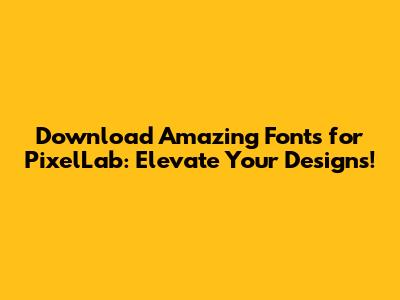
- BeFonts: This website offers a wide variety of fonts, perfect for various design projects.
- FontSpace: This is a great place to discover fonts for personal and commercial use.
- 1001 Free Fonts: As the name suggests, this website has a huge collection of free fonts.
Hey guys! Are you ready to level up your PixelLab game? If you're anything like me, you know that the right font can make or break a design. It can transform a simple text into a powerful message that grabs attention. But, where do you find the perfect fonts? Well, that's where I come in! I'm here to guide you through the exciting world of font downloads for PixelLab, ensuring your designs are not just good, but k-e-r-e-n! (that means cool in Indonesian, by the way!). We'll cover everything from finding awesome fonts, downloading them, and getting them installed in PixelLab so you can start creating stunning visuals right away.
Why Fonts Matter in PixelLab
First off, let's talk about why fonts are so darn important. Think about it: they're the visual voice of your design. They communicate the tone, mood, and personality of your message. Imagine you're creating a poster for a rock concert. You wouldn't use a dainty, elegant font, right? You'd go for something bold, edgy, and maybe even a little rebellious. That's the power of fonts! They help you connect with your audience on an emotional level and make your designs more memorable. In PixelLab, you have incredible flexibility to customize text, add effects, and, of course, choose from a vast library of fonts. However, the default fonts, while useful, might not always give you the unique look you're after. That’s where downloading custom fonts comes in! You can find literally thousands of fonts online, ranging from classic serifs and sans-serifs to modern, handwritten styles, and everything in between. This gives you the creative freedom to express your unique vision, whether you're designing social media graphics, YouTube thumbnails, or promotional materials. Using the right fonts can make your designs feel professional, polished, and on-brand, helping you stand out from the crowd and grab your audience's attention. Seriously, guys, finding the right fonts is like finding the perfect spice for a dish – it elevates the entire experience. It adds an extra layer of visual flair to your projects, which will make them look professional.
So, whether you're a seasoned designer or just starting out with PixelLab, this guide will help you discover, download, and install awesome fonts to take your designs to the next level. Ready to dive in? Let's go!
Finding Awesome Fonts: Your Ultimate Resource Guide
Alright, let's get down to the good stuff: finding the fonts! There are tons of websites out there where you can find free and premium fonts, but I'll share some of my favorite resources, focusing on the ones that offer a wide variety of styles and are easy to navigate. This way, you don't have to spend hours browsing – you can get right to the fun part: downloading and using those cool fonts!
Google Fonts
Google Fonts is a total goldmine, and one of my go-to resources. It's a free, open-source font library, and it's super user-friendly. The best thing? You don't have to download anything to use the fonts directly in your design. Simply find the font you like and use the name to search for it directly within PixelLab. Google Fonts offers a massive collection of fonts, including a lot of popular choices that are great for various design projects. The fonts are well-organized and categorized, making it easy to browse and find the perfect match for your needs. Plus, many of the fonts are available in multiple weights and styles (like bold, italic, etc.), giving you even more flexibility.
DaFont
DaFont is another fantastic resource, especially for unique and creative fonts. It has a massive collection, and you can find a lot of interesting and quirky fonts there. However, make sure you check the licensing terms of each font to ensure you can use them for your projects, especially if they are for commercial use. The website is easy to use, and you can sort by style, theme, and author. Just a word of caution: the sheer number of fonts can be a little overwhelming at first, so it might be helpful to have a specific style in mind before you start browsing. Some font types offered are Gothic, Script, Handwritten, Dingbats, and many more. DaFont is a popular choice for designers because of its wide selection of fonts, allowing users to make many different design styles. The website is easy to navigate, with clear categories and a search function, which helps users easily find fonts based on specific styles or keywords. It is also a community-driven platform, with user reviews and ratings to help users assess font quality and suitability for their projects. So, take advantage of the ability to find some great fonts!
Font Squirrel
Font Squirrel is another excellent resource, focusing on high-quality, free fonts that are perfect for commercial use. This website is especially useful if you're looking for fonts that are licensed for both personal and commercial projects. All fonts on Font Squirrel come with a license that specifies how they can be used. It has a curated collection of fonts, ensuring that you find professional-looking options. The website also provides useful tools like the Font Identifier, which lets you upload an image of a font and identify its name. It's a really useful feature if you see a font you like and want to use it in your own designs. It's a great choice for finding beautiful, high-quality fonts without having to worry about licensing issues. This makes it super easy to ensure you're using fonts legally and without any hassles.
Other Resources
Besides the resources I mentioned above, here are a few other websites to check out:
Remember to always check the font licenses before downloading and using any font. Some fonts are free for personal use only, while others are free for commercial use. This way, you can avoid any legal issues and ensure you're using the fonts correctly. Now that you know where to find awesome fonts, let's move on to the next step: downloading them!